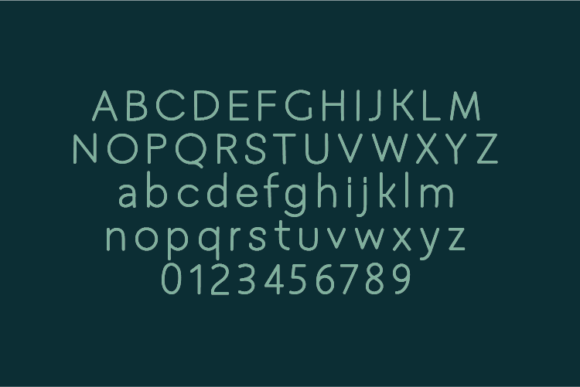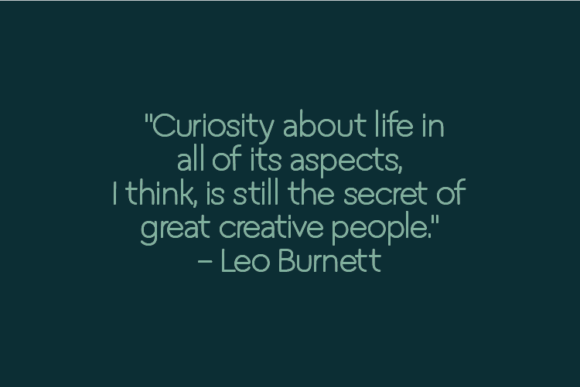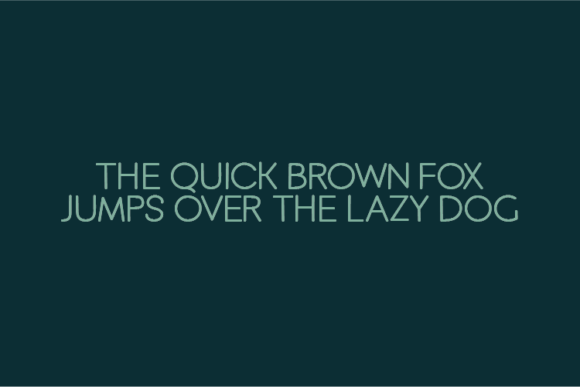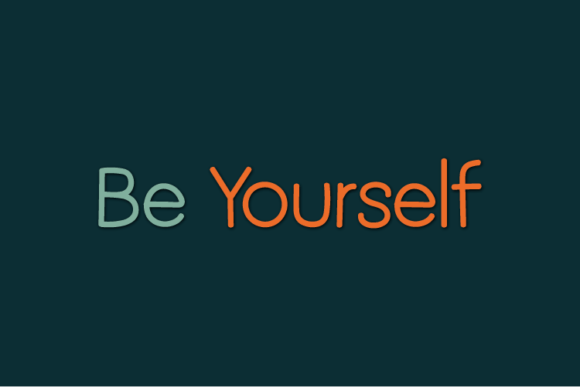
The Power of Authenticity: Discovering the Be Yourself Font
I’ll never forget the time I was working on a craft project, pouring my heart and soul into it, but struggling to find the perfect font to match its personality. My client wanted something that felt natural, elegant, and true to their brand’s voice. That’s when I stumbled upon the Be Yourself font, a casual and neat sans serif typeface that has since become a staple in my design toolkit.
A Personal Review: What I Love About Be Yourself Font
The Be Yourself font has won me over with its impressive features. Here’s what I love:
- ✨ Natural and elegant style: This font effortlessly conveys a sense of authenticity and sophistication, making it perfect for crafts, branding, and creative projects.
- ✅ High legibility: Even at smaller sizes, Be Yourself remains clear and easy to read, which is a huge plus for designers working with limited space.
- 🌈 Versatility: This font adapts seamlessly to various design contexts, from digital platforms to print materials.
While Be Yourself is an excellent font, it’s not without its quirks:
- 🤔 Limited character variations: Be Yourself doesn’t offer an extensive range of character variations, which might limit its use in projects requiring a high degree of customization.
- ⚠️ Occasional kerning issues: As with any font, some users have reported minor kerning issues, particularly with certain letter combinations.
One of the standout features of the Be Yourself font is its support for OpenType features and glyphs. Users can access stylistic alternates, ligatures, and other typographic elements to add depth and personality to their designs. For example, you can use:
- Ligatures to create visually appealing connections between letters.
- Stylistic alternates to add variety and flair to your text.
The Backstory Behind Be Yourself Font
The Be Yourself font was designed with the intention of creating a typeface that embodies the spirit of authenticity and natural elegance. Inspired by the beauty of handwritten scripts and the simplicity of sans serif fonts, Be Yourself strikes a balance between sophistication and approachability. While the exact designer behind Be Yourself remains a mystery, their vision for a font that encourages creativity and self-expression is evident in every character.
Q: What makes Be Yourself font unique?
A: Be Yourself font stands out due to its natural and elegant style, making it perfect for crafts, branding, and creative projects that require a personal touch.
Q: Does Be Yourself support OpenType features?
A: Yes, Be Yourself font supports OpenType features, including ligatures and stylistic alternates, allowing for greater typographic control and customization.
Q: Is Be Yourself suitable for body text?
A: Absolutely! Be Yourself font offers high legibility, making it suitable for body text in various design projects, from digital content to print materials.